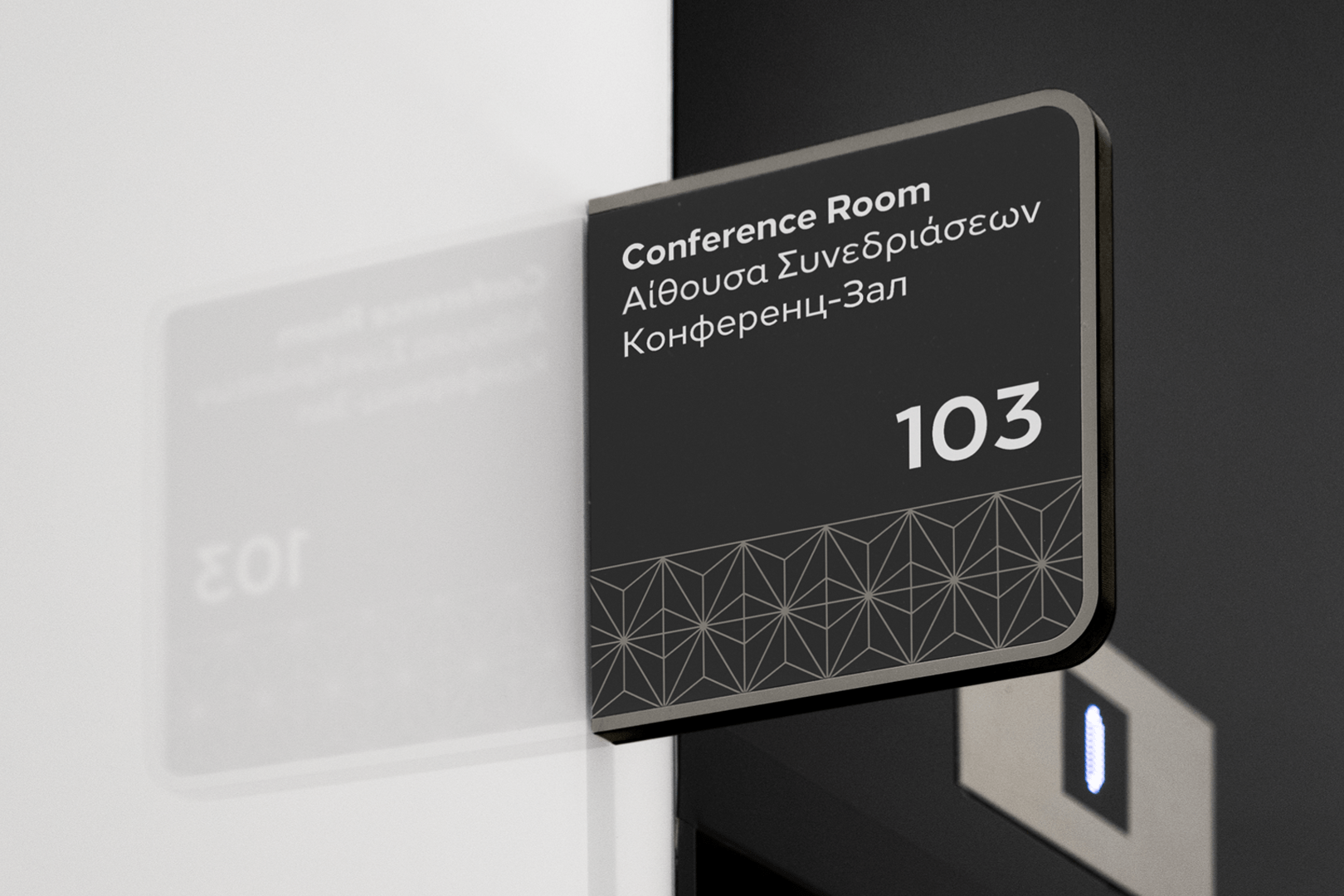
Loew Next is the modern, honest and straightforward sans-serif type family for global communication. Reworked from the original Loew (2014), the typeface has been refined to enhance consistency across weights and to expand compatibility with non-Latin scripts.
With eight weights plus italics, Loew Next offers extensive OpenType features, including alternate lowercase forms
(a, e, g, l), seven numeral variations, and small caps
with accents. Its language support spans Cyrillic, Greek and Extended Latin, making it a versatile choice for pan-European and international branding.